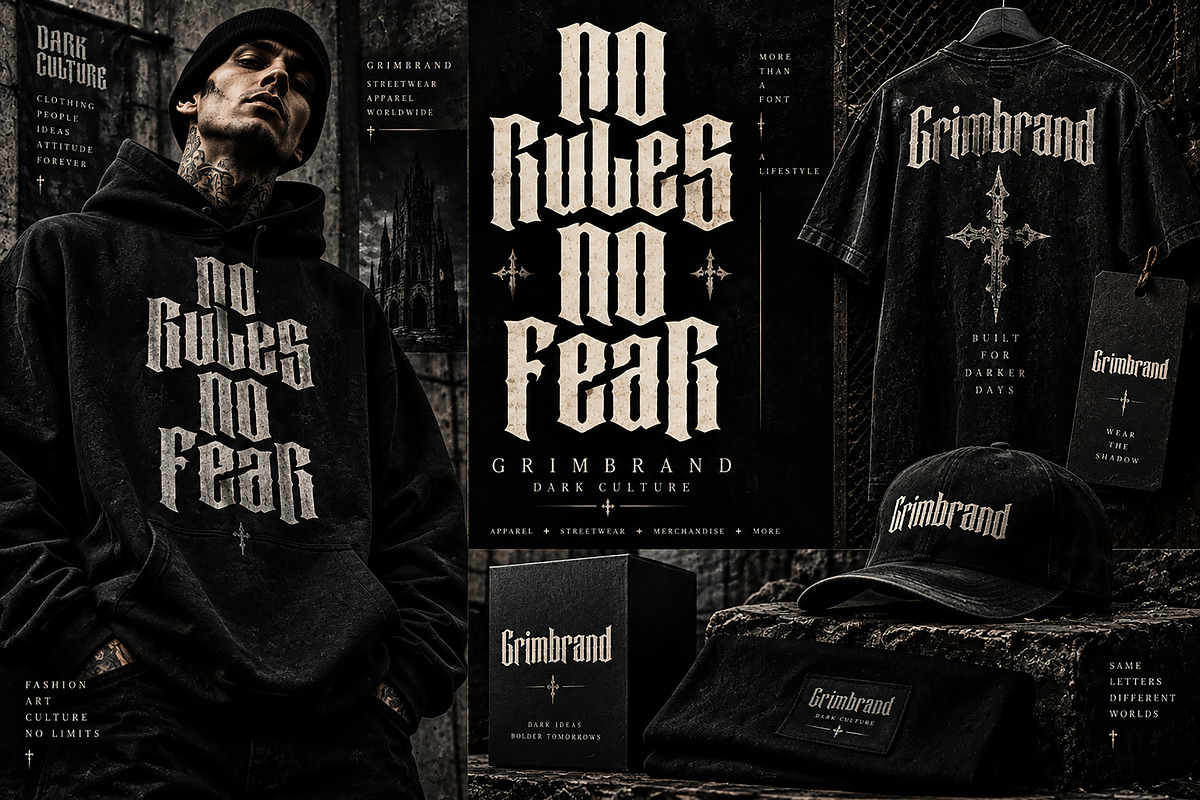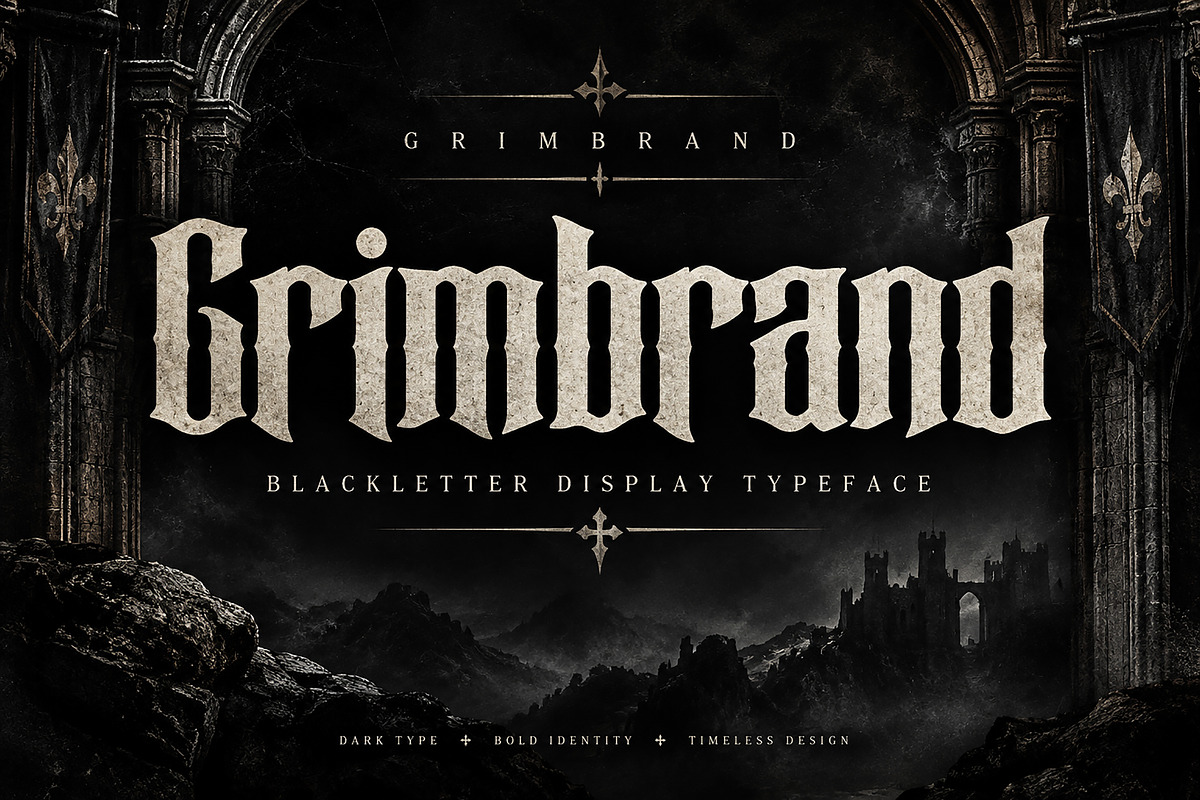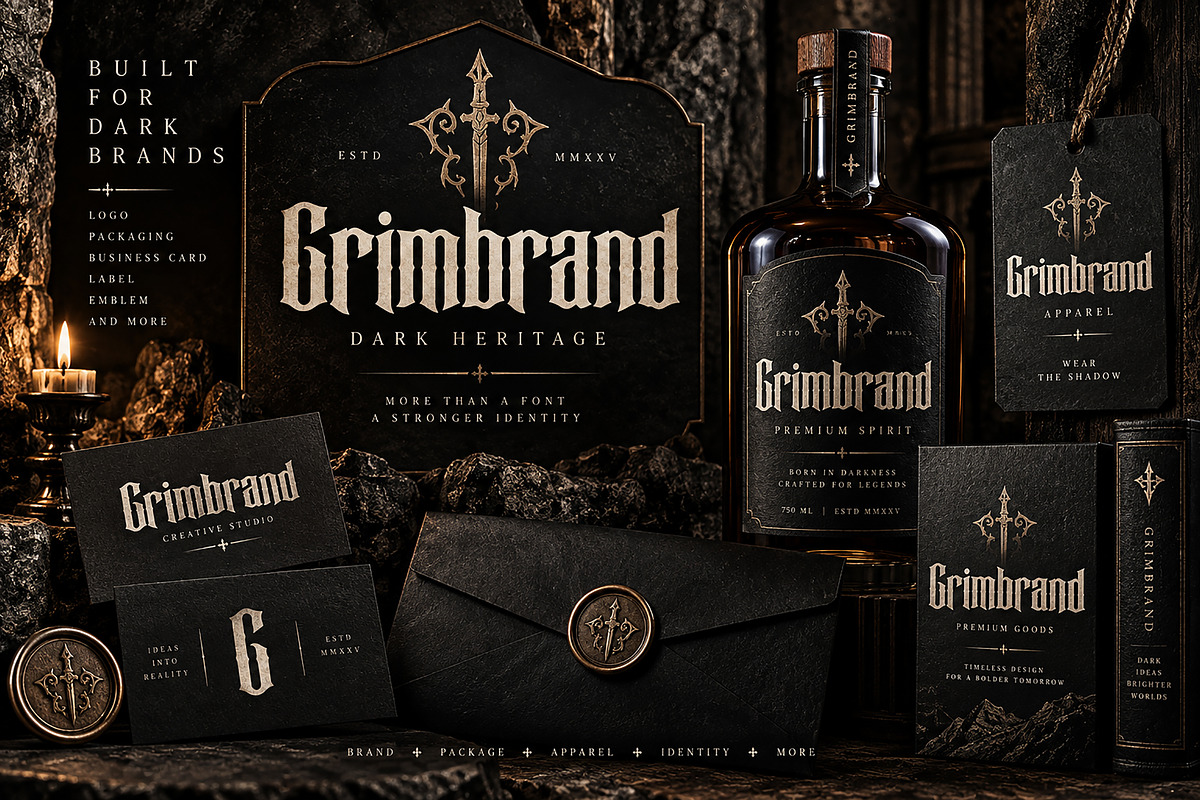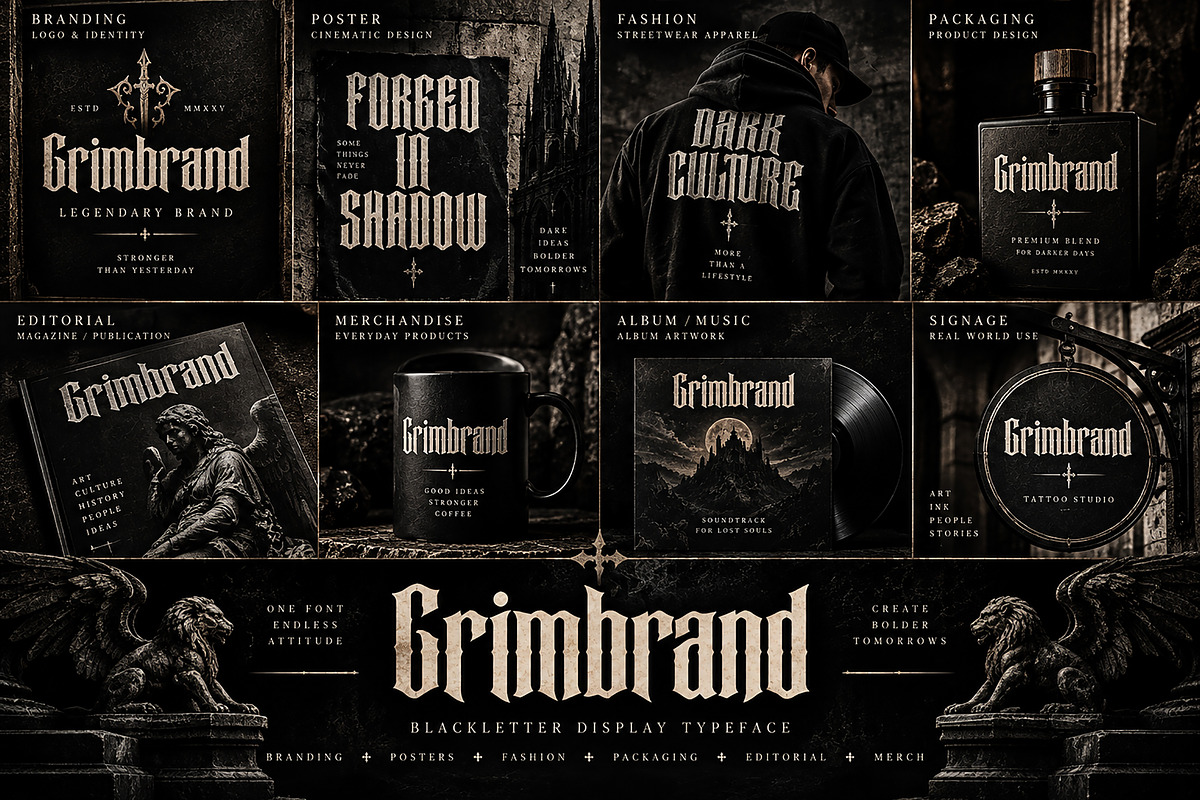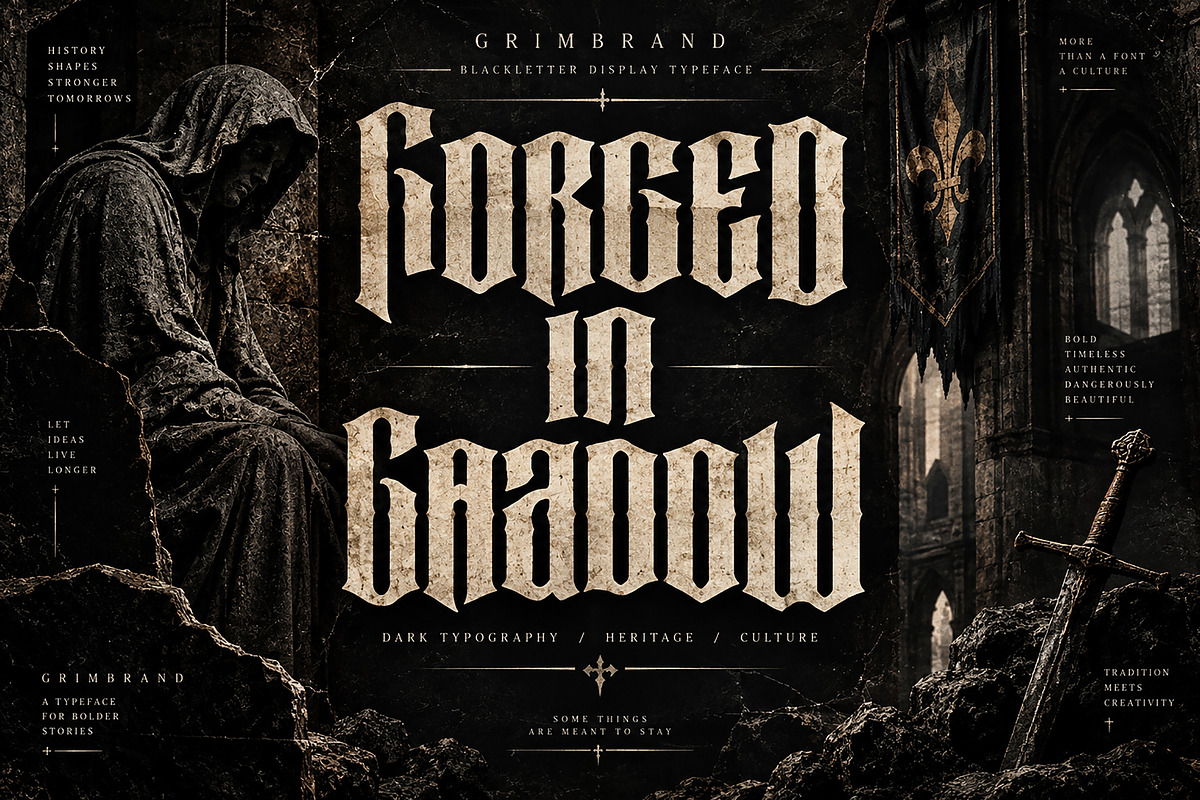
Grimbrand
Grimbrand is a bold and powerful Blackletter display typeface inspired by medieval lettering, gothic heritage, dark culture, and timeless craftsmanship. Its dramatic, sharp, and distinctive letterforms are designed to create an immediate visual impact and give your projects a strong, mysterious, and authentic character.
Perfect for designers looking to create gothic logos, dark branding, posters, fashion graphics, streetwear designs, album artwork, packaging, editorial layouts, merchandise, labels, and more.
Grimbrand works especially well when you need typography that feels powerful, historic, rebellious, dramatic, and unforgettable.
Gothic & Blackletter Logos
Dark Luxury Branding
Streetwear & Fashion Designs
T-Shirt & Hoodie Graphics
Posters & Flyers
Album & Music Artwork
Labels & Badges
Editorial Design
Tattoo-Inspired Designs
Medieval & Heritage Projects
Creative Typography
Bold Blackletter / Gothic Display Style
Strong Medieval-Inspired Character
Dramatic and Distinctive Letterforms
Ideal for Large Display Typography
Suitable for Branding and Merchandise
Great for Print and Digital Projects
Style: Gothic / Blackletter / Medieval Display
Grimbrand — One Font. Endless Attitude.